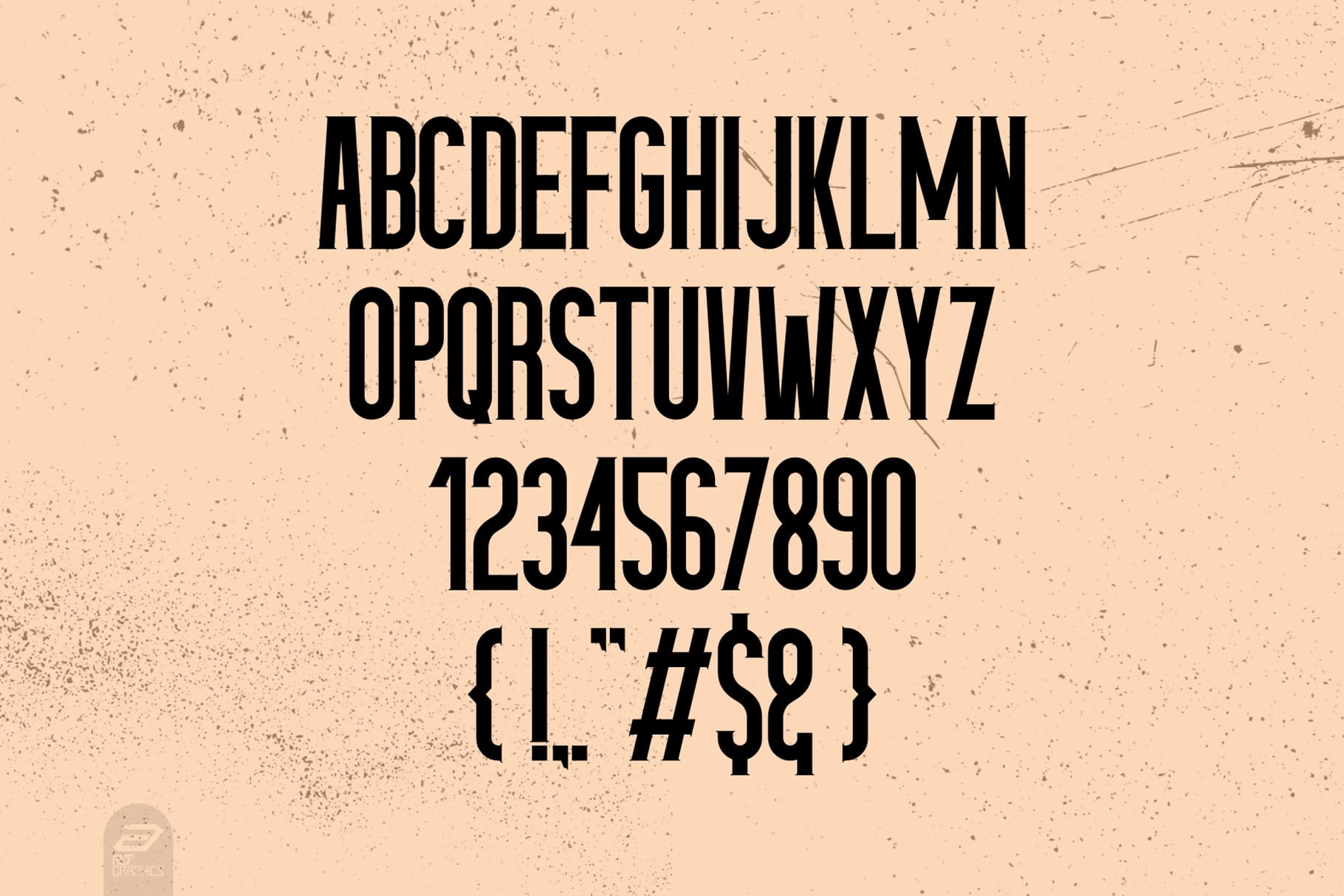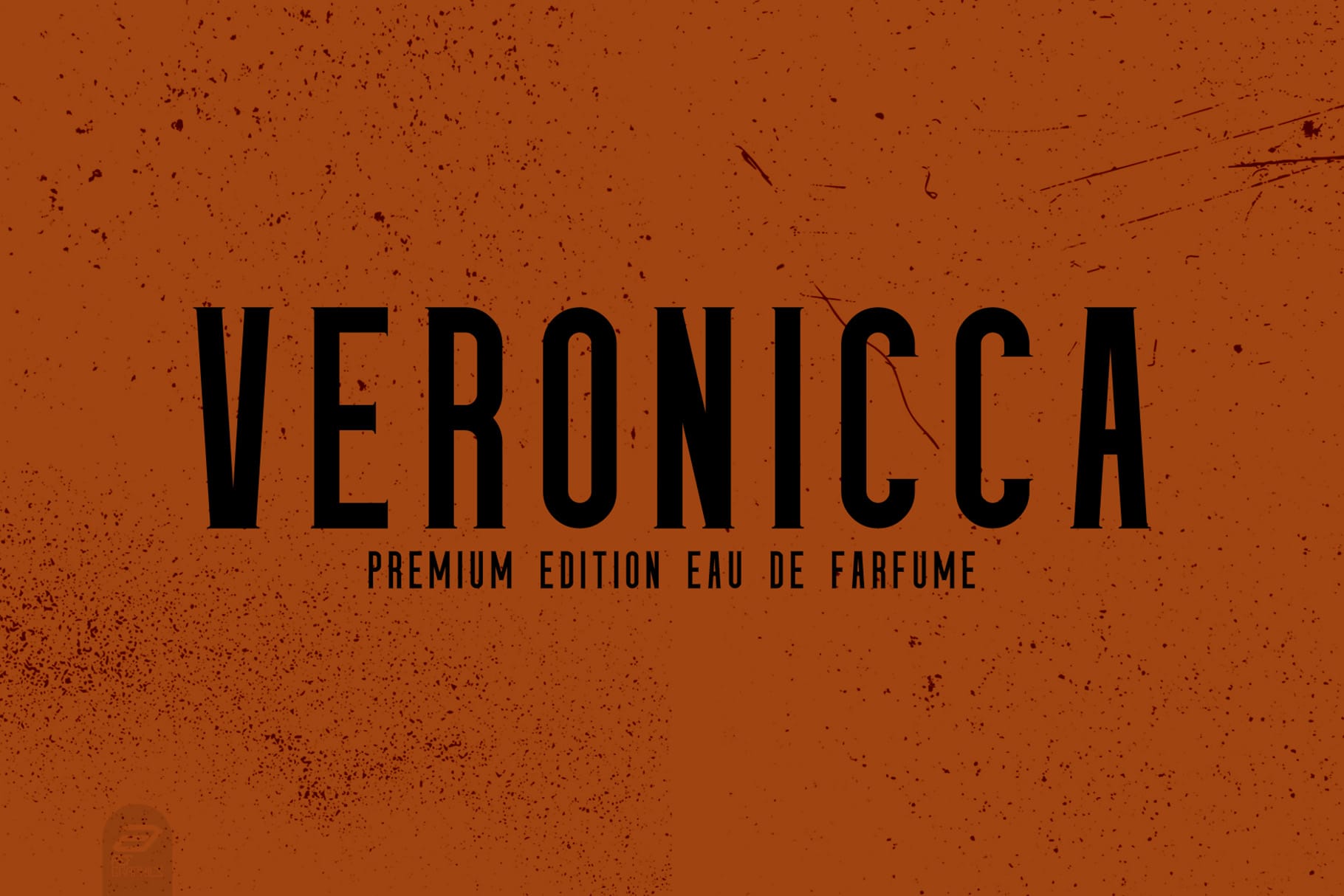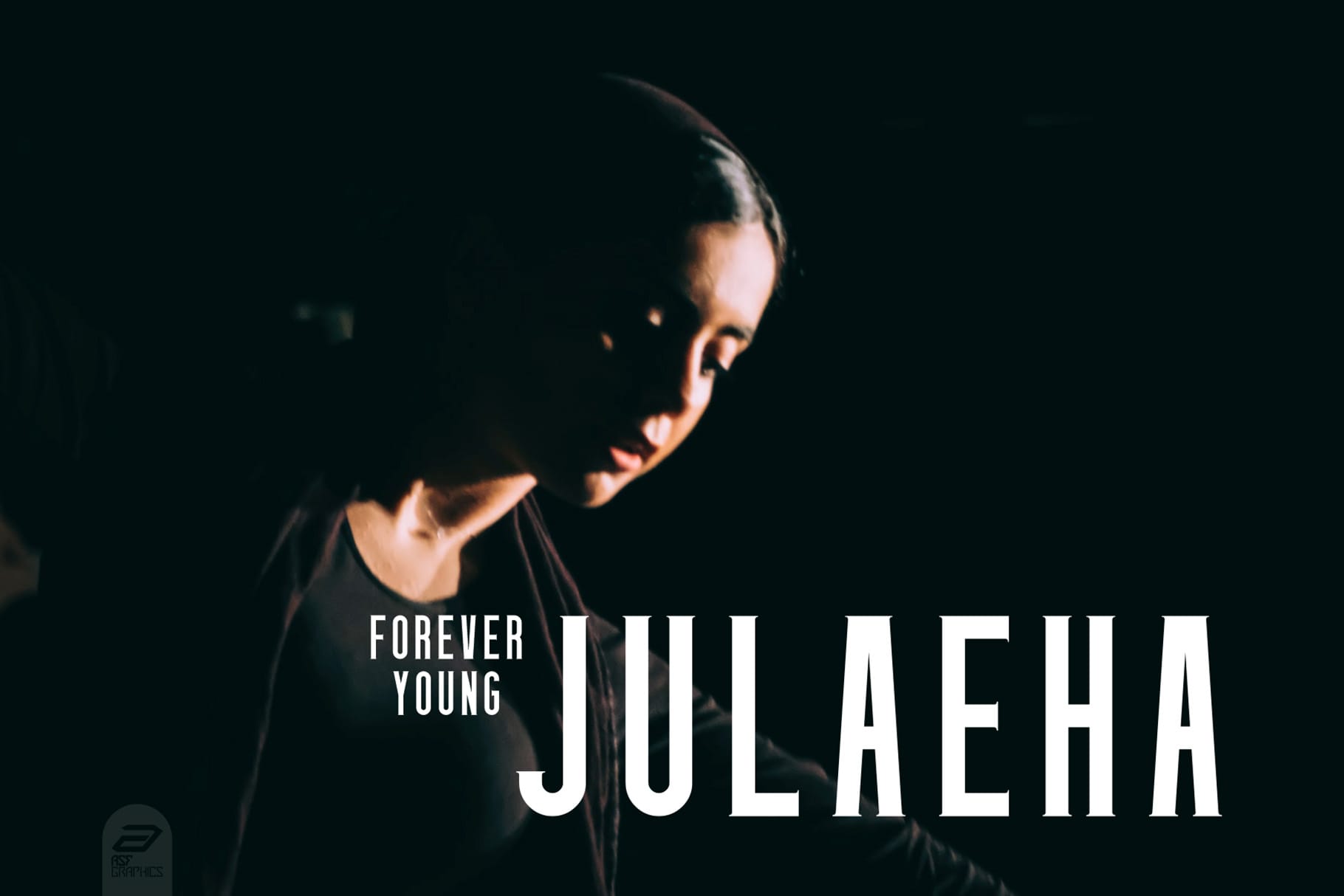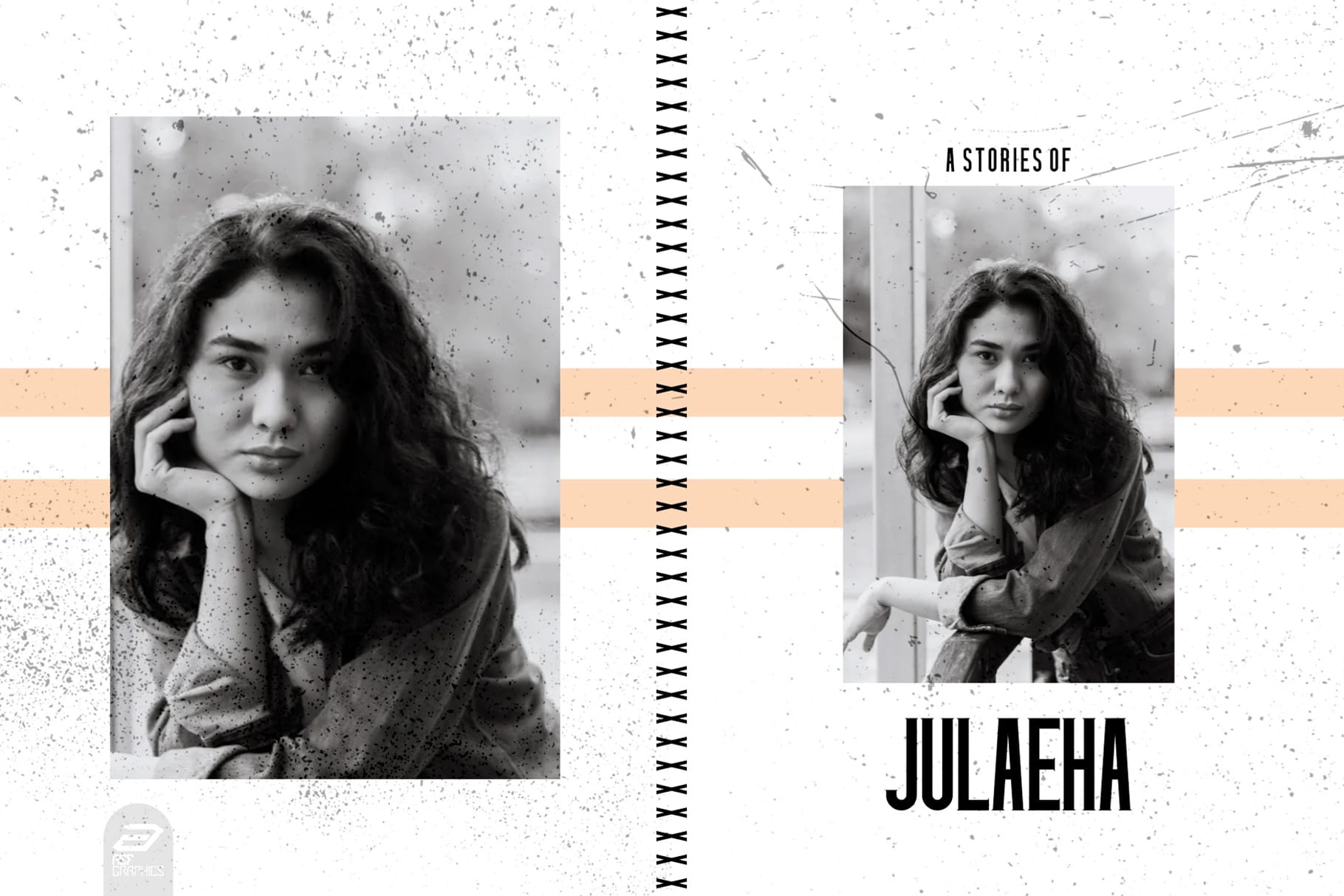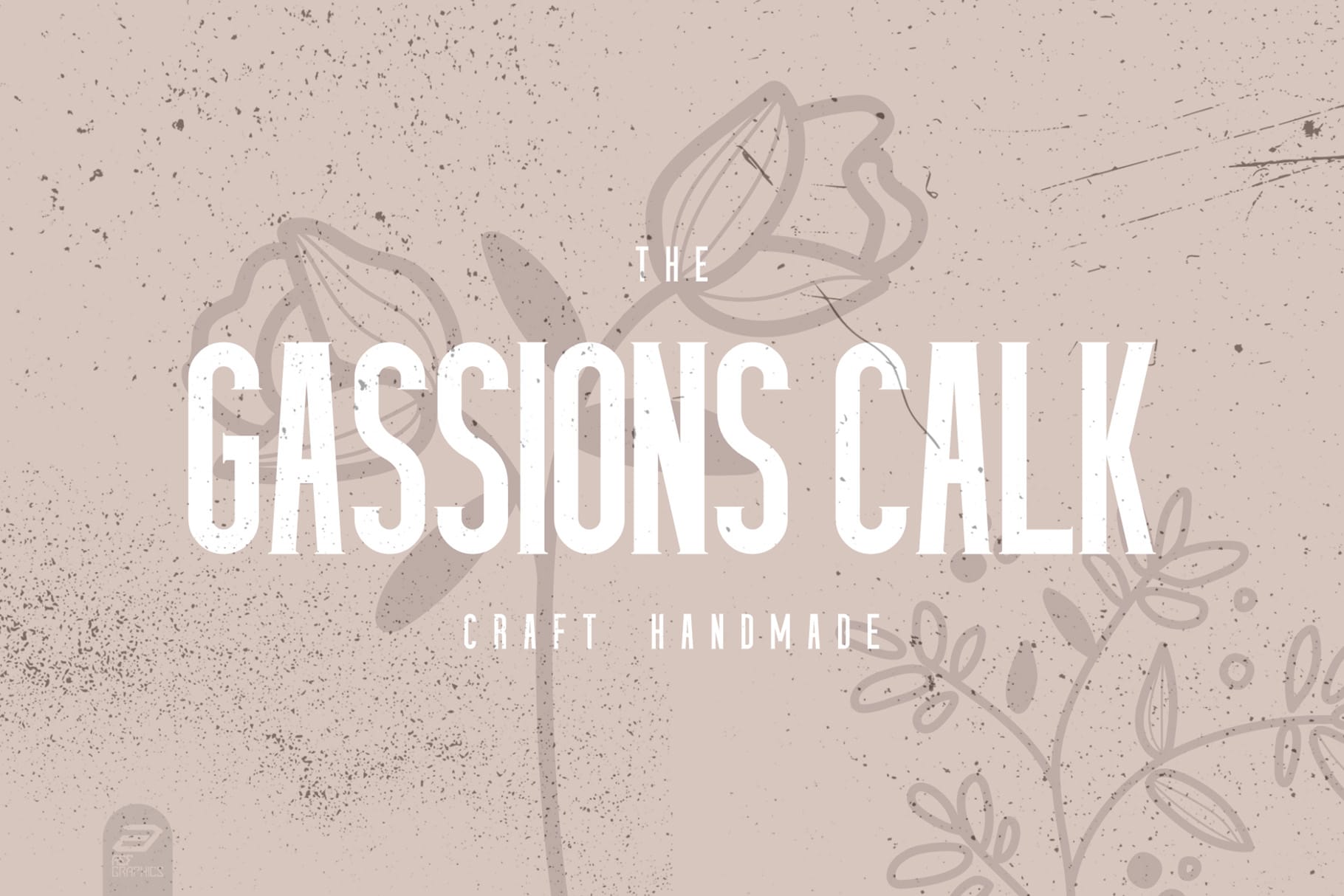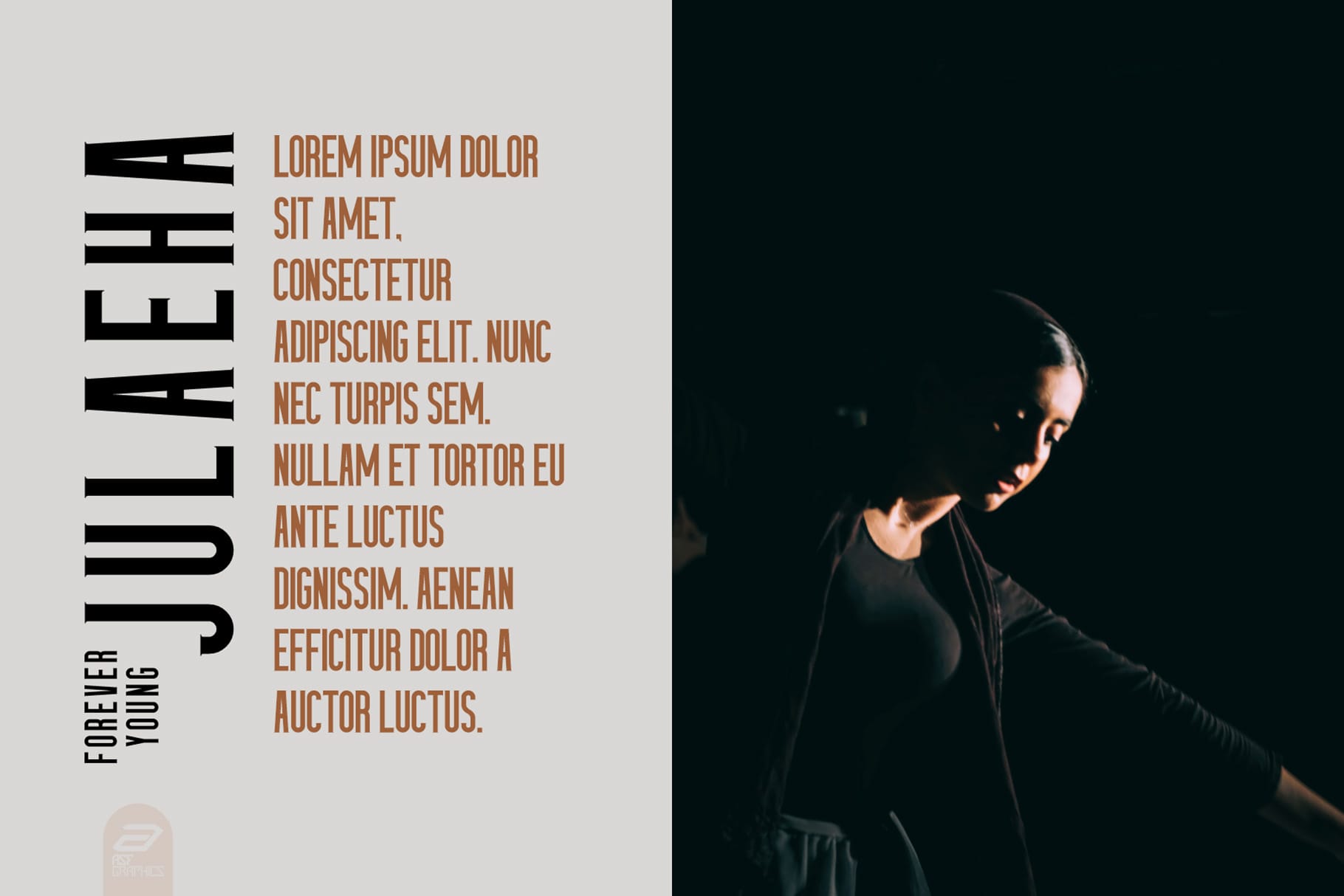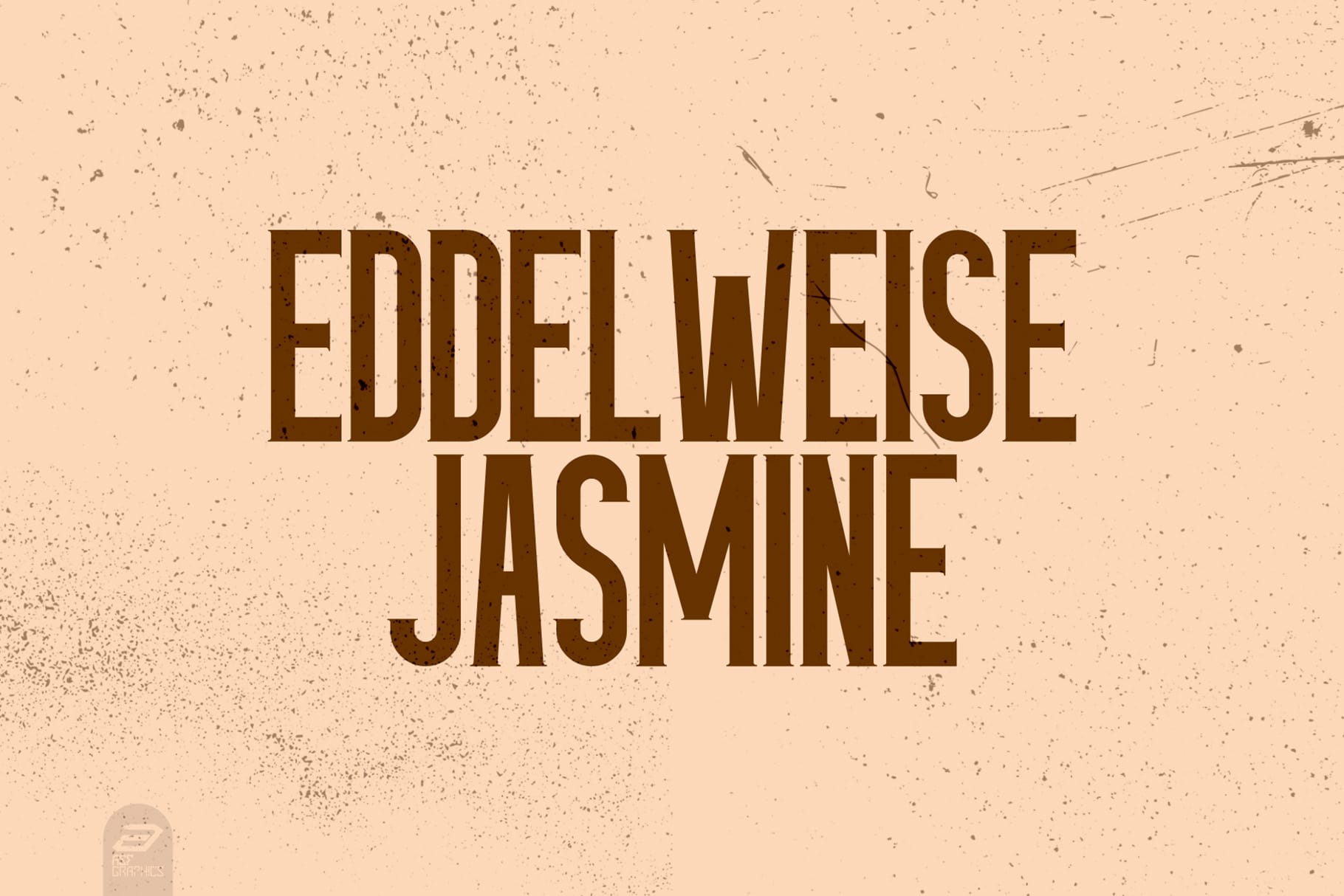
Huitside
Huitside Fashion Serif Typeface is created for designers and brand makers who need typography with a refined, stylish, and editorial presence. With its fashion-inspired serif personality, Huitside brings a polished look to logos, packaging, magazine layouts, boutique branding, beauty visuals, and premium digital content.
This typeface is a strong choice when your design needs to feel elegant without becoming overly decorative. It gives your words a confident visual tone, making it useful for brand names, product labels, campaign headlines, social media graphics, and presentation titles.
For fashion labels, beauty brands, creative studios, and boutique businesses, typography is more than decoration. It shapes the first impression. Huitside helps your design feel more intentional, composed, and visually memorable from the first glance.
Huitside carries the mood of a fashion serif typeface with a clean editorial attitude. It feels elegant, stylish, and brand-ready, making it suitable for creative projects that need a premium impression. The serif direction gives it a timeless foundation, while the fashion-focused styling makes it feel current and visually expressive.
Use Huitside when you want your typography to feel polished and selective. It can support high-end layouts, modern product visuals, soft luxury branding, and stylish promotional graphics. Its personality works especially well for projects where visual taste matters, such as fashion campaigns, skincare packaging, perfume labels, boutique logos, lookbooks, and magazine-inspired layouts.
Best Use Cases
Huitside is well suited for brand identities that need a graceful and editorial serif tone. It can be used for logo design, fashion branding, beauty packaging, skincare labels, cosmetic product names, boutique signage, stationery, business cards, posters, social media templates, website headlines, and promotional graphics.
For fashion businesses, Huitside can help create a refined identity across lookbooks, collection titles, campaign graphics, and online shop visuals. For beauty and lifestyle brands, it can bring a sophisticated touch to packaging, labels, and digital marketing assets.
Designers can also use Huitside for client presentations, moodboards, editorial spreads, portfolio headers, and digital products. Its style makes it valuable for projects that need a premium serif without relying on excessive ornamentation.
Key Features
• Fashion serif typeface style
• Standard characters
• Punctuation
• PUA encoded
Designers love Huitside because it gives projects an immediate sense of style and direction. A fashion serif typeface can quickly elevate a layout, especially when the project needs to look polished, premium, and visually curated.
Huitside is useful for designers who create brand identities for fashion, beauty, lifestyle, wedding, and boutique clients. It helps typography feel intentional, whether used in a logo, a product label, a website hero title, or a campaign headline.
It is also practical for creators who sell templates, digital products, printable designs, or social media kits. A strong serif typeface can make a template look more valuable and professional, helping buyers imagine the design inside a real brand system.
For small business owners, Huitside can support a more consistent visual identity. You can use it across packaging, online graphics, signage, and branded content to create a more cohesive look.
For a clean and premium contrast, pair Huitside with a modern sans serif from the Figuree Studio catalog such as Midnight Workers. This pairing can work beautifully for fashion logos, lookbook titles, packaging systems, and website headers.
You can also pair Huitside with Bolde when you need stronger contrast between elegant serif headlines and confident supporting text.
Huitside Fashion Serif Typeface is a polished choice for designers who want to create elegant brand visuals with a refined editorial feel. Use it for fashion identities, beauty packaging, boutique logos, magazine-inspired layouts, and premium digital content that needs a graceful serif voice.